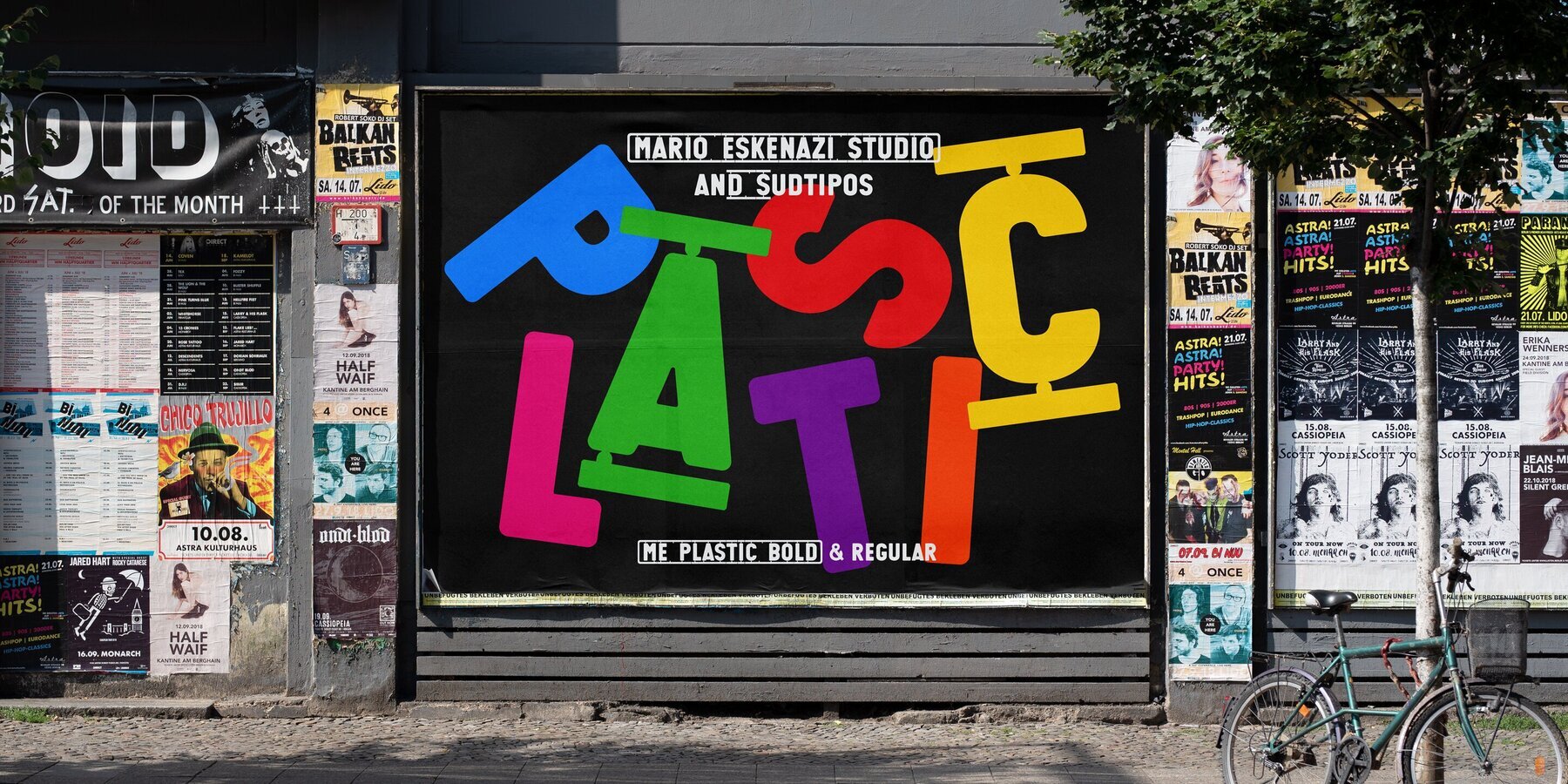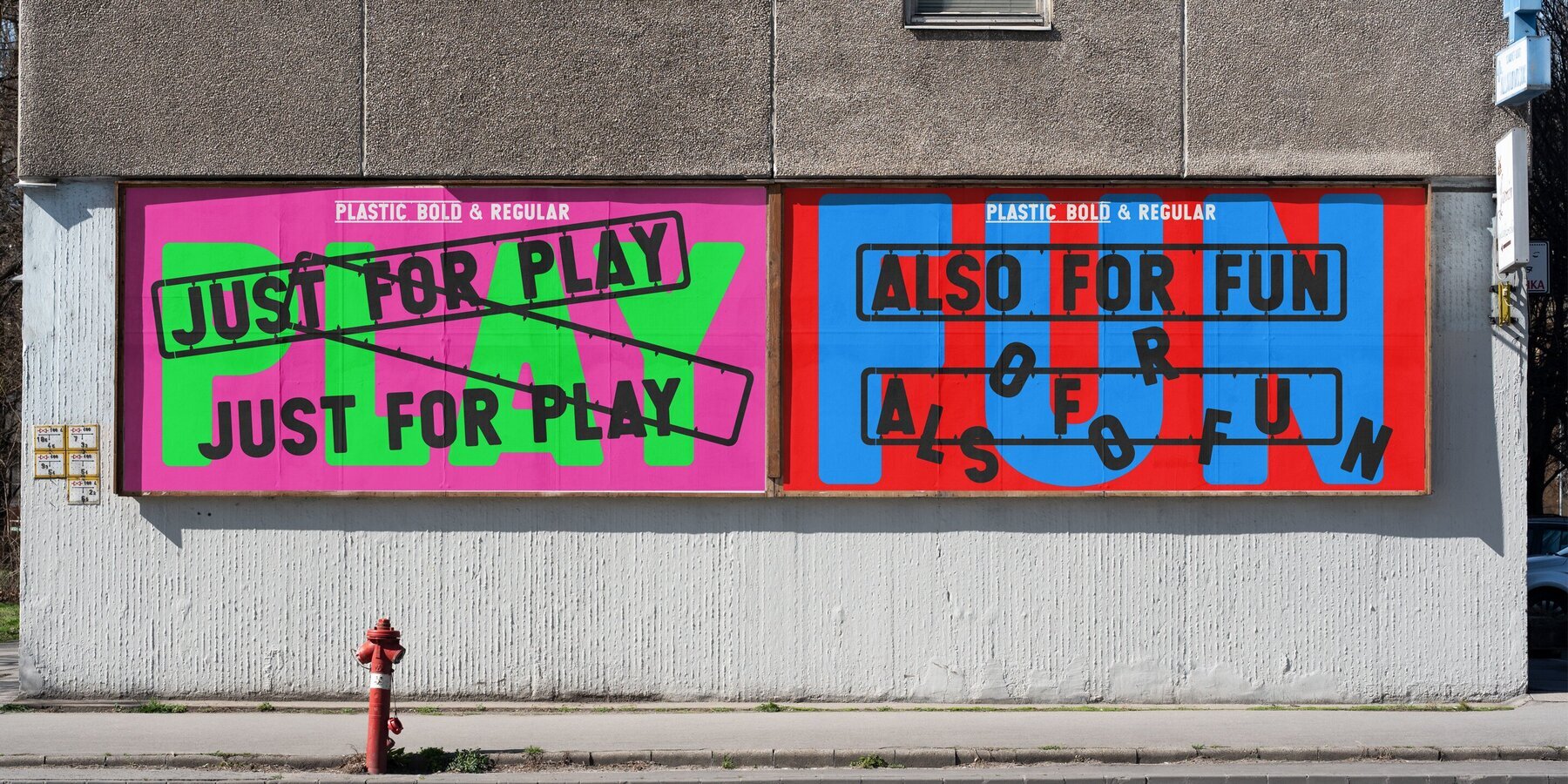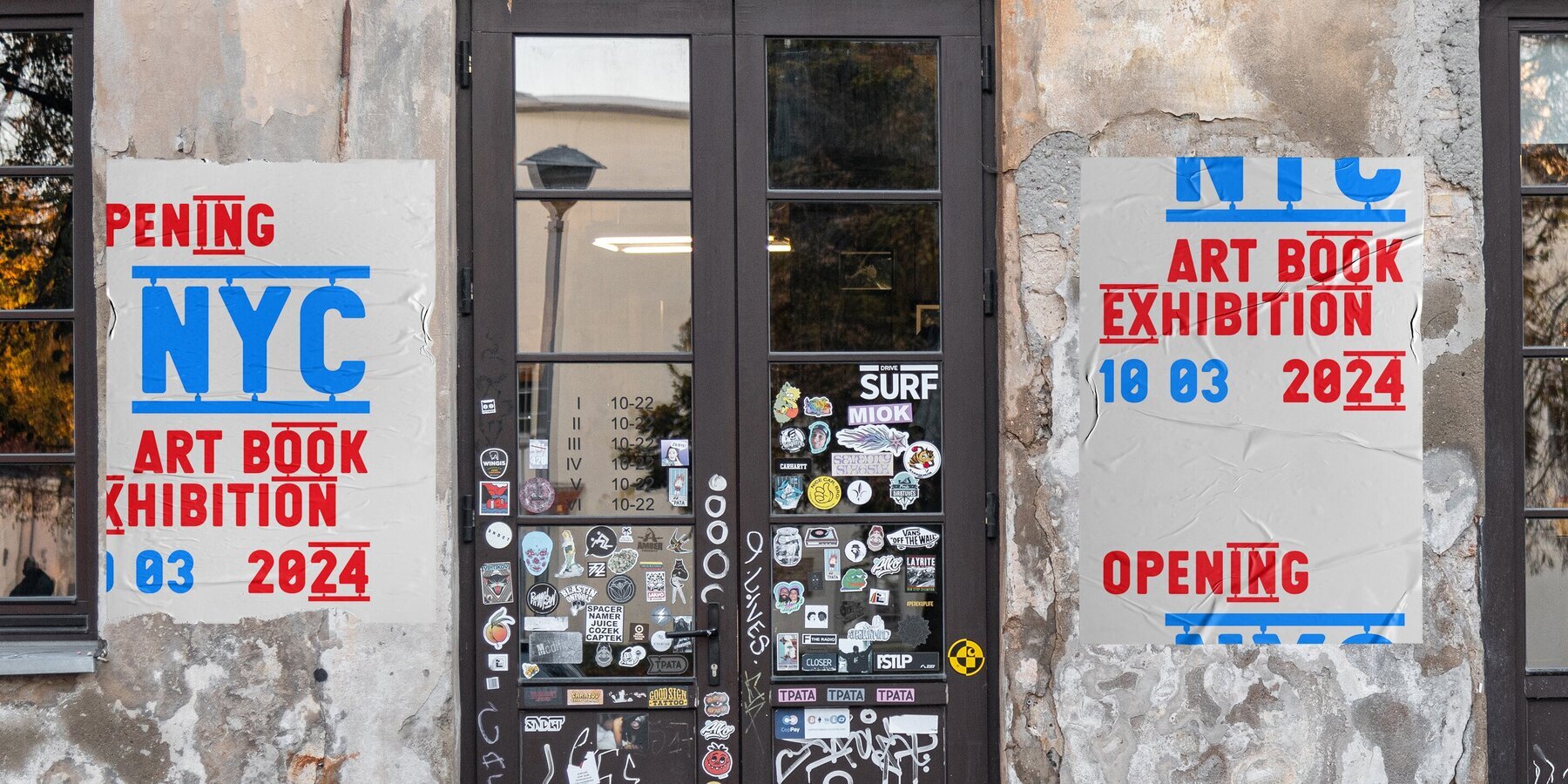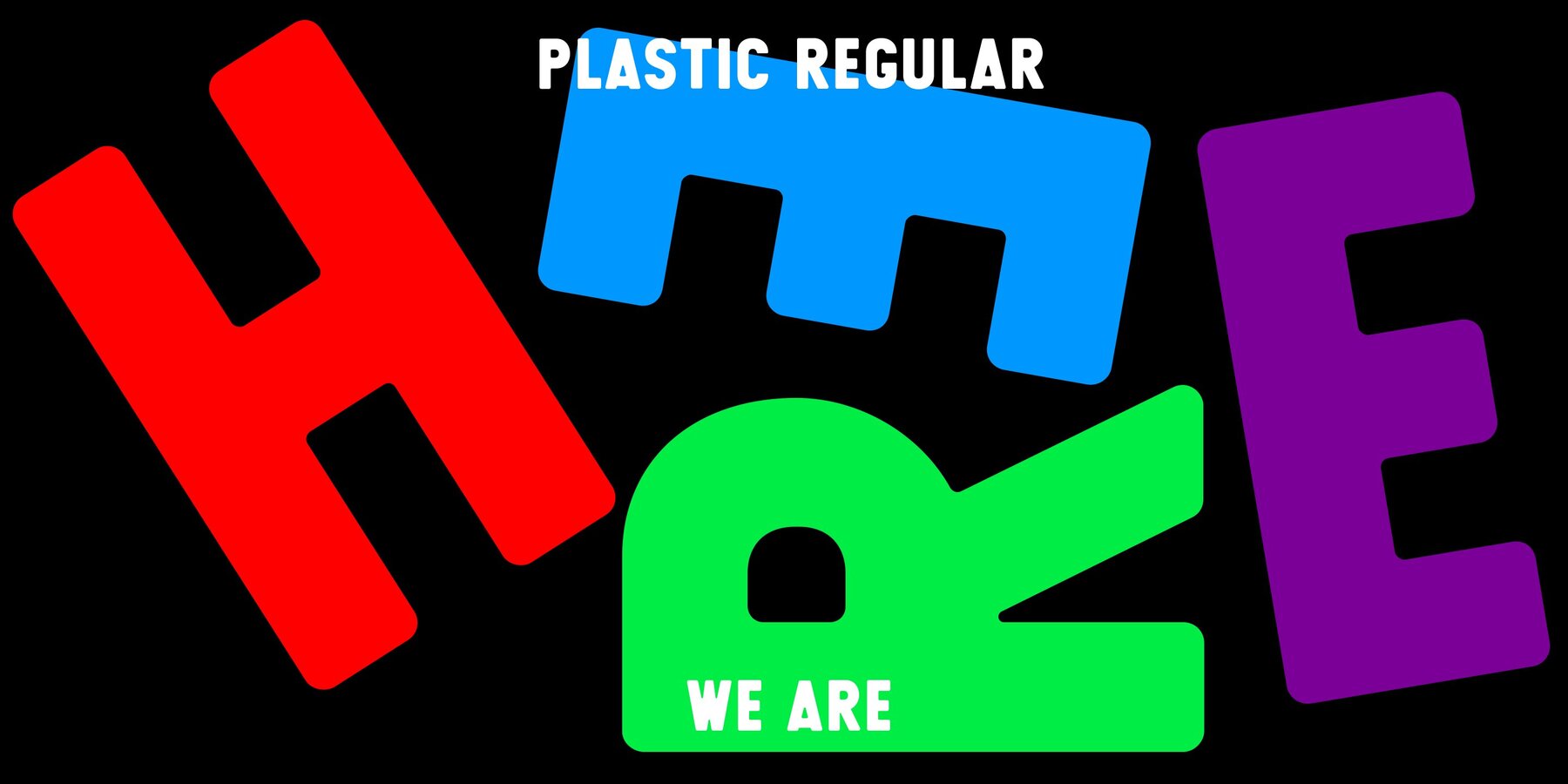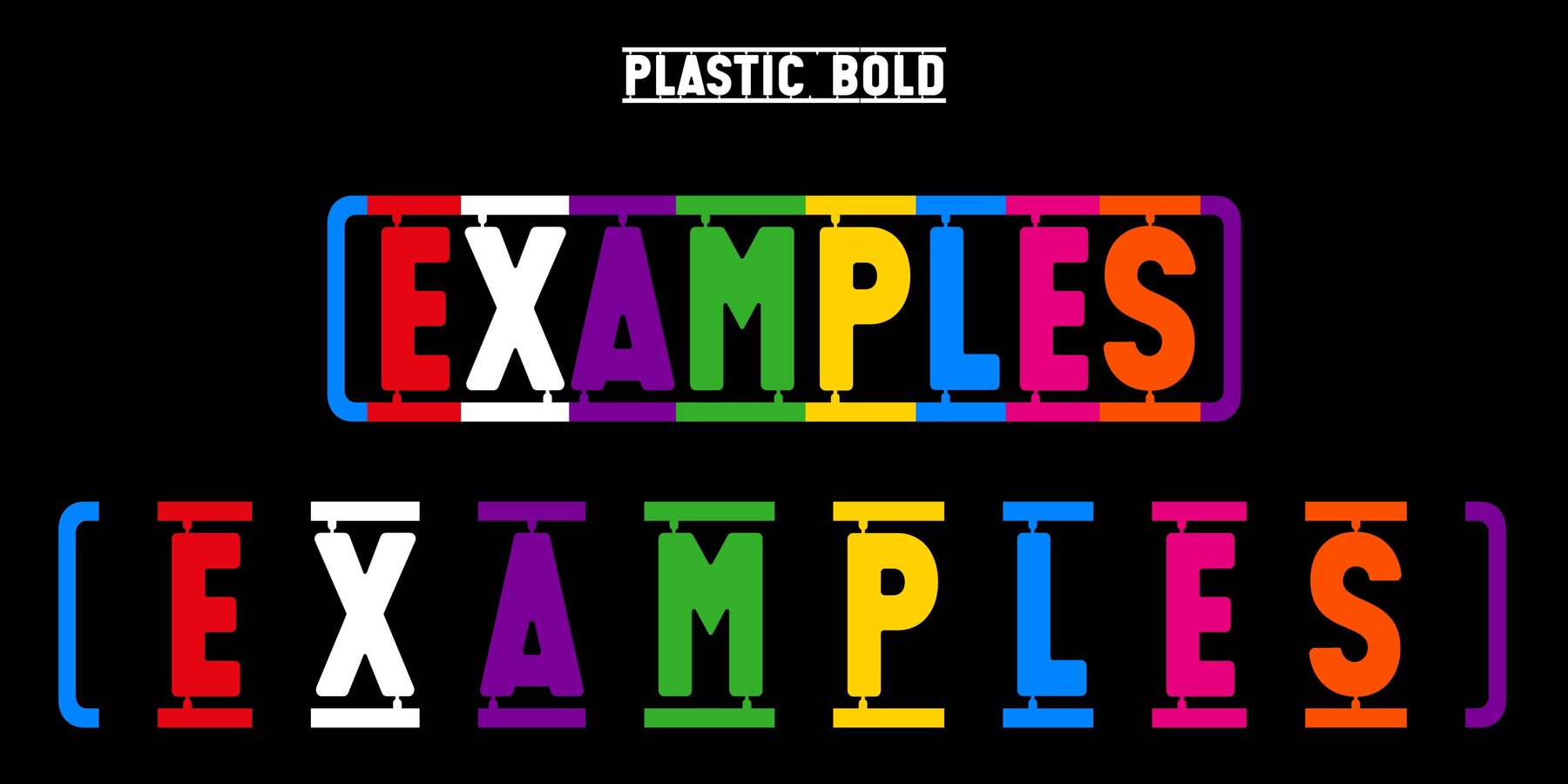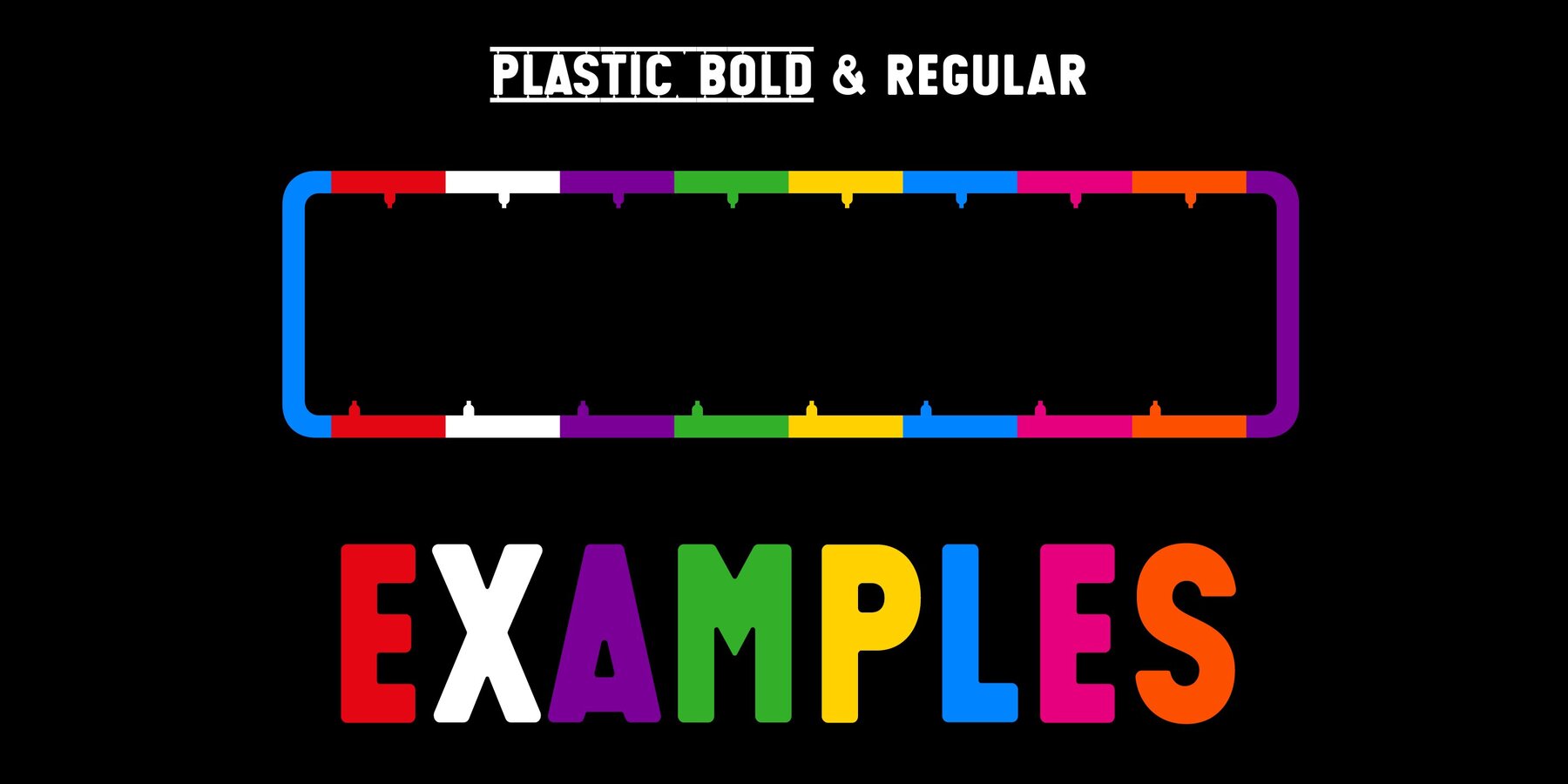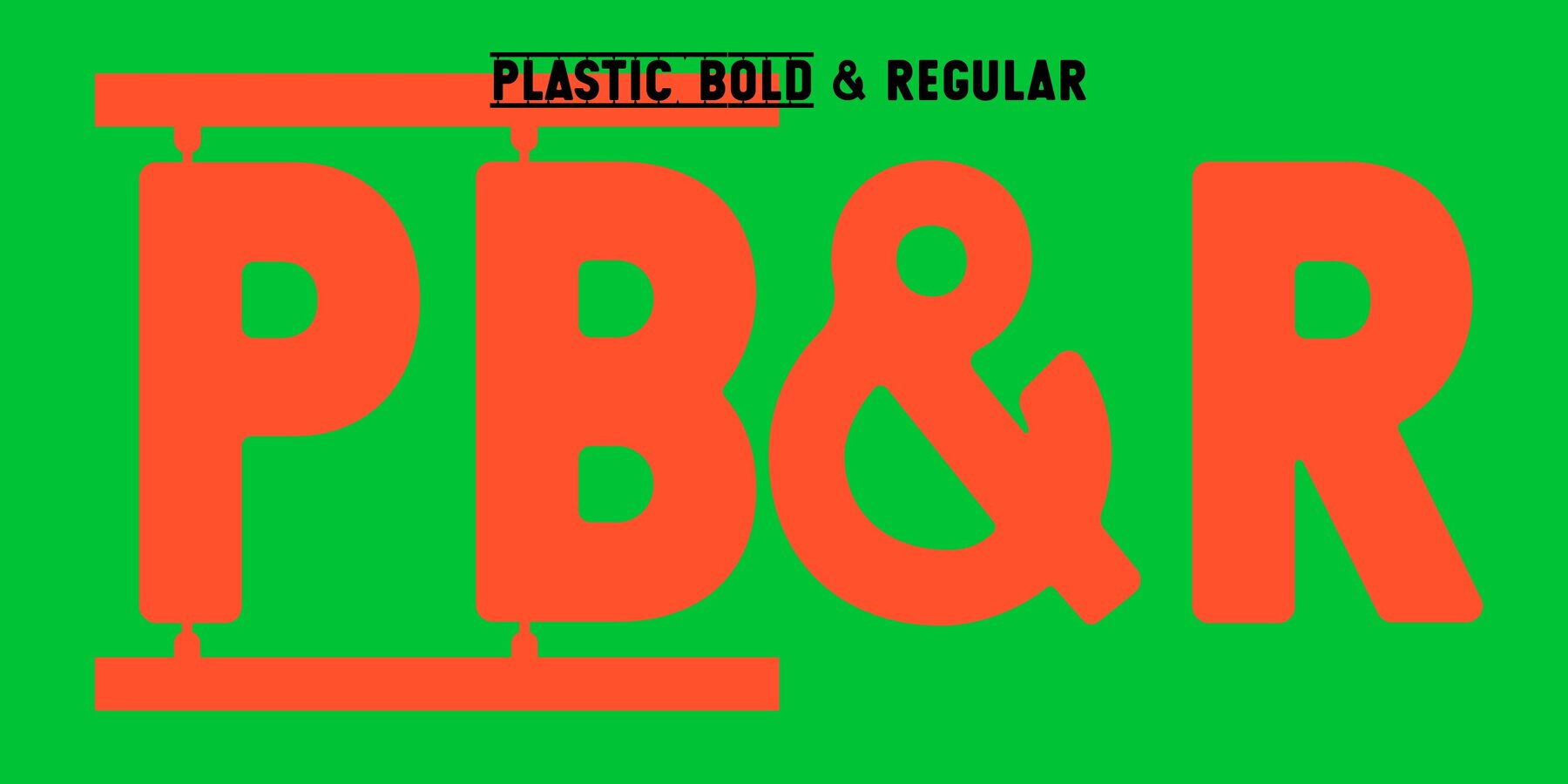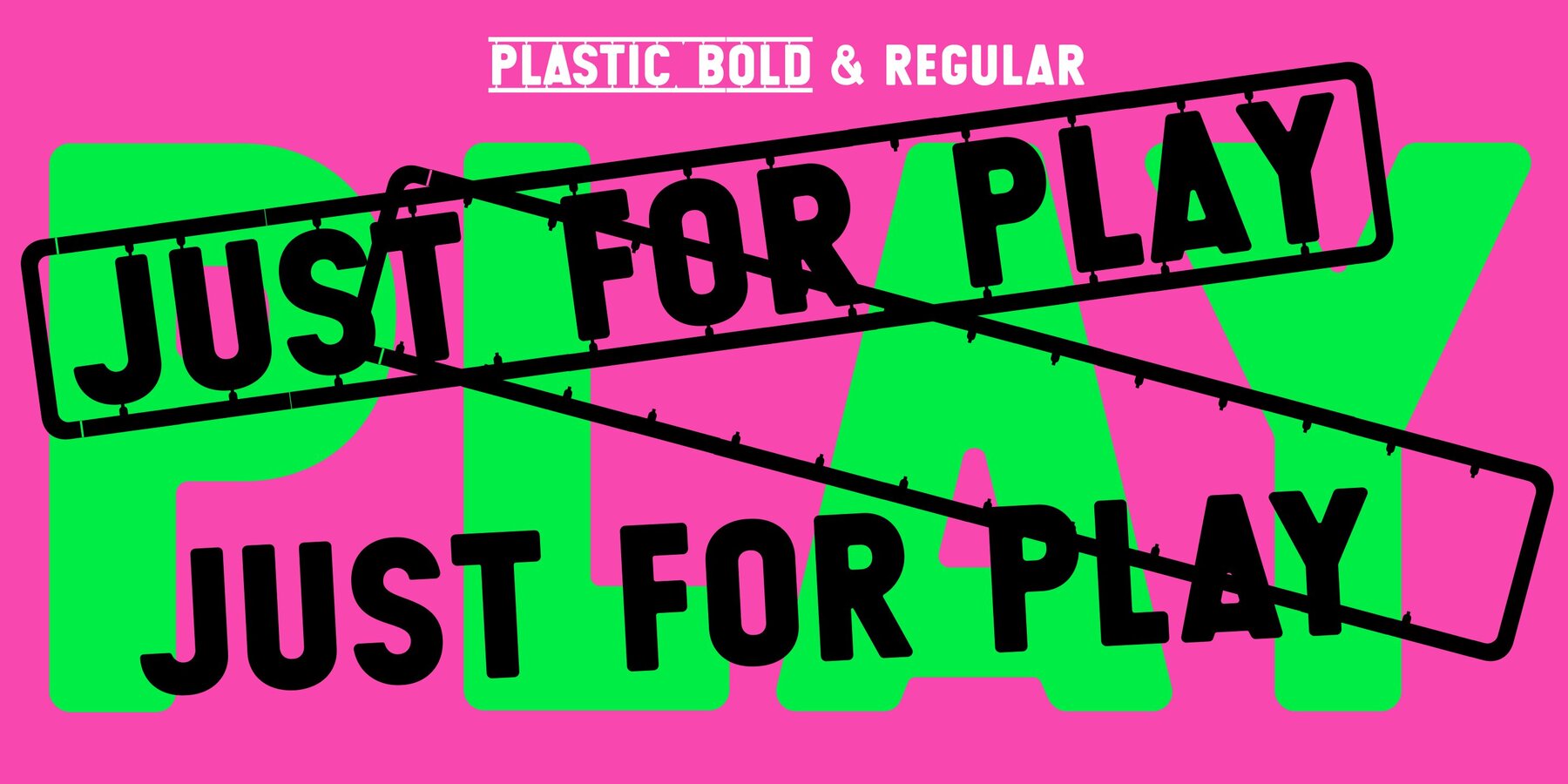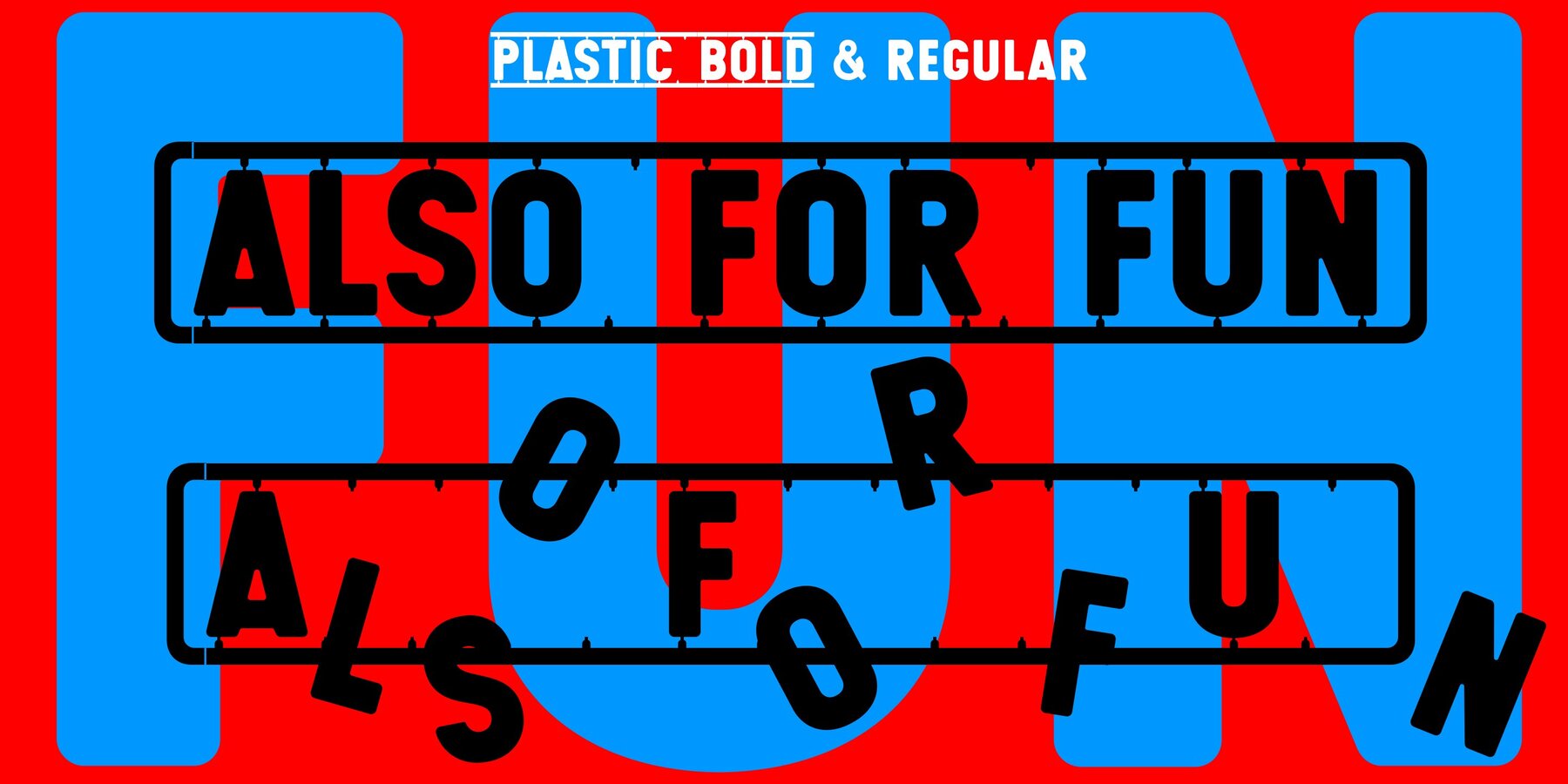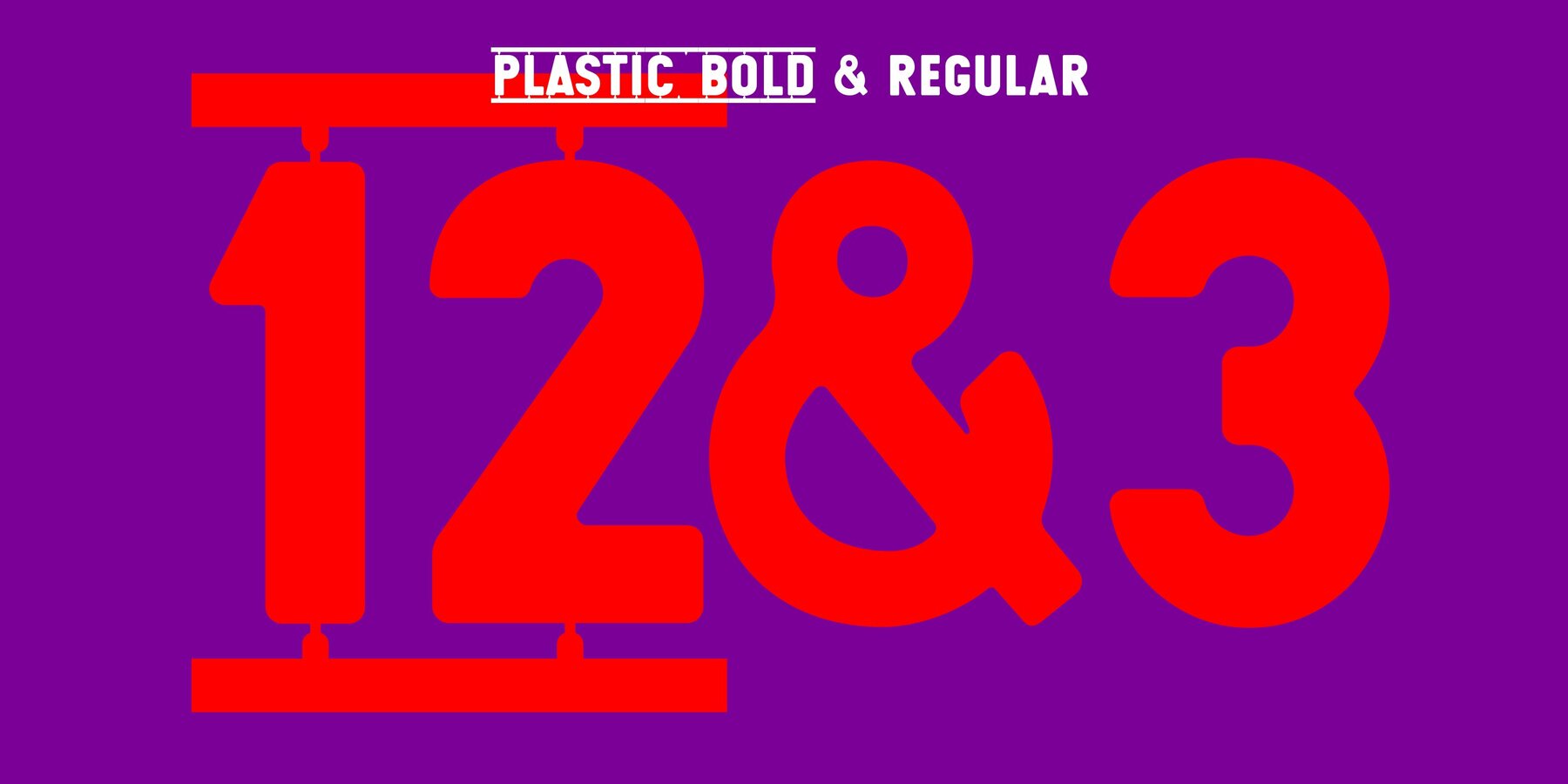
Me Plastic Font
ME Plastic Regular
ME Plastic Bold
We are thrilled to announce ME Plastic, the first commercial font from Mario Eskenazi Studio, designed by the renowned Mario Eskenazi and his daughter, Gabriela. This unique font was inspired by a beloved set of plastic alphabet letters from Mario’s collection. ME Plastic brings a playful, casual style to any design project, celebrating a father-daughter design collaboration that bridges the past and the present. When Mario’s daughters were young, his frequent travels to London often led him to discover unique treasures. In a toy store, he found a set of plastic alphabet letters that became a beloved plaything with his daughters. This serendipitous find sparked a fascination, and he began collecting various types of letters, particularly those made from plastic stencils. One day, inspired by his growing collection, Mario, together with his daughter Gabriela who works with him at his studio, decided to digitize one of these plastic alphabets. From this creative endeavor, ME Plastic was born. It features a bold set of connected letters alongside a set of individual characters. The casual and vernacular style of this alphabet infuses designs with a distinct personality, making it ideal for book covers, cultural posters, and any project that demands a touch of unique character. Thus, from playful beginnings in a London toy store to a digital renaissance shared between father and daughter, ME Plastic embodies a journey of discovery and creativity, capturing the essence of a family's love and the timeless charm of letters.